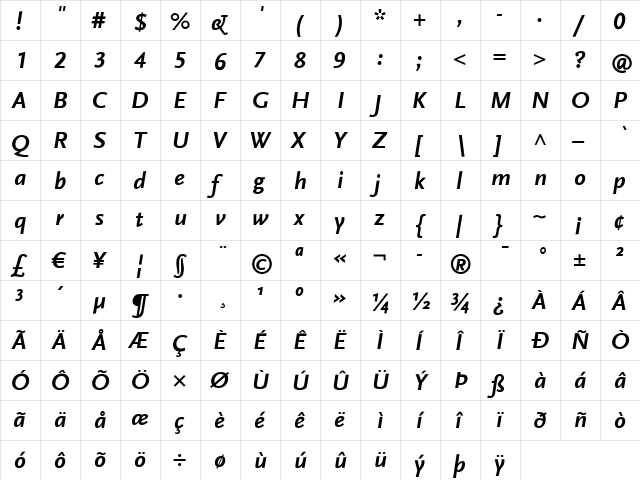
ScalaSansLF Bold Italic Font Preview
Design Context for ScalaSansLF Typeface
ScalaSansLF takes a measured approach to typography — its balanced proportions and neutral character make it a reliable workhorse for both digital and print work. The slanted form adds forward momentum and visual energy. The heavy weight commands attention and anchors typographic hierarchies.
Pro Tip: Try ScalaSansLF for annotation and caption copy alongside an upright companion — the contrast in angle creates a dynamic but ordered typographic system.